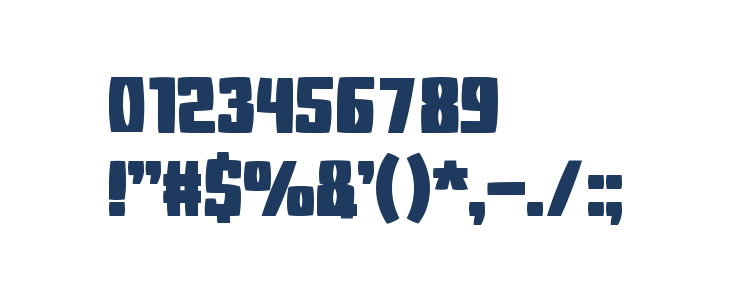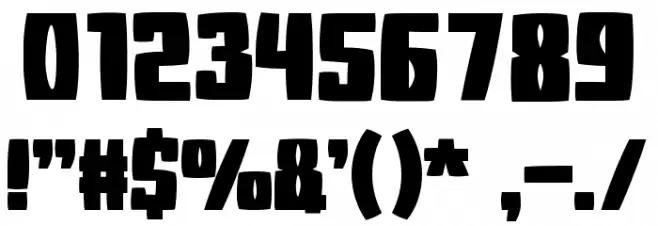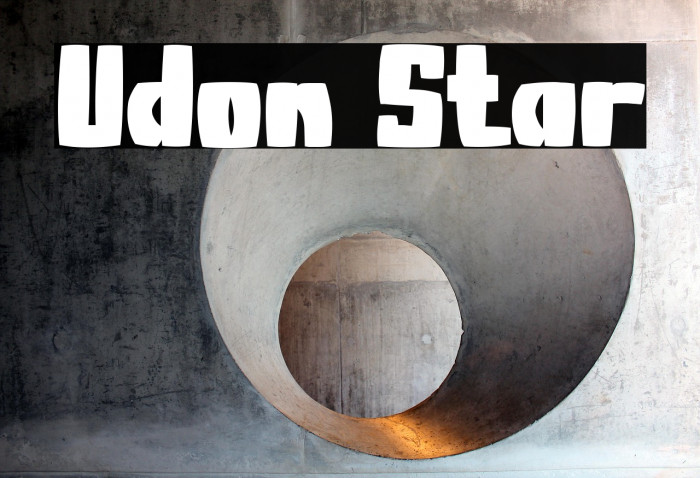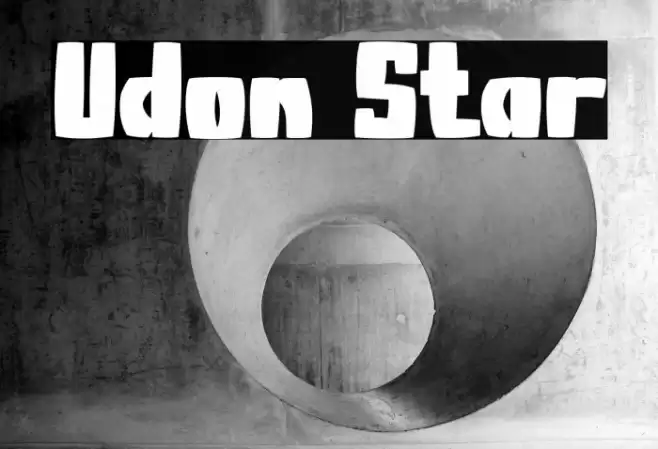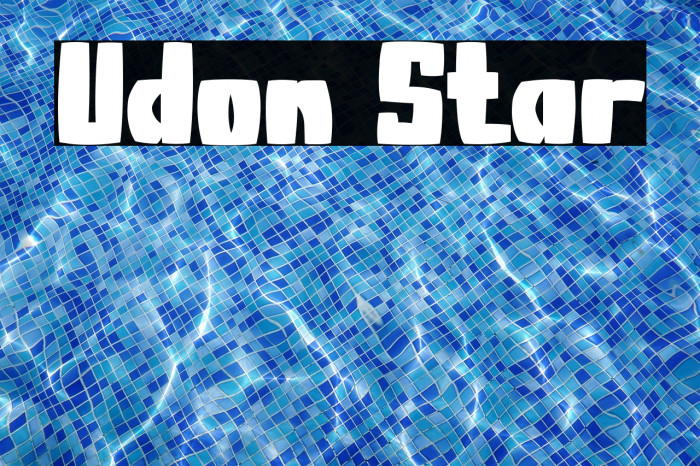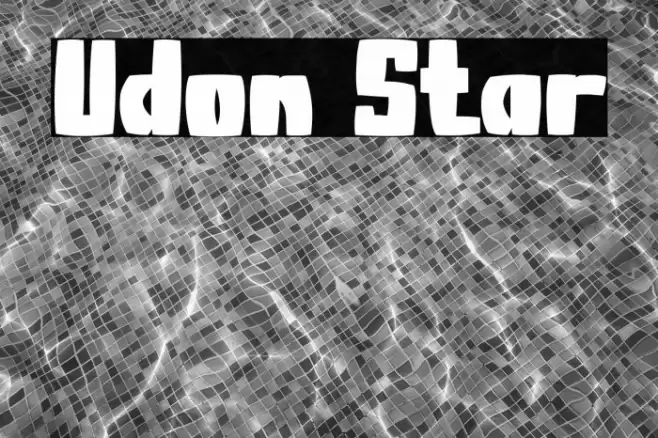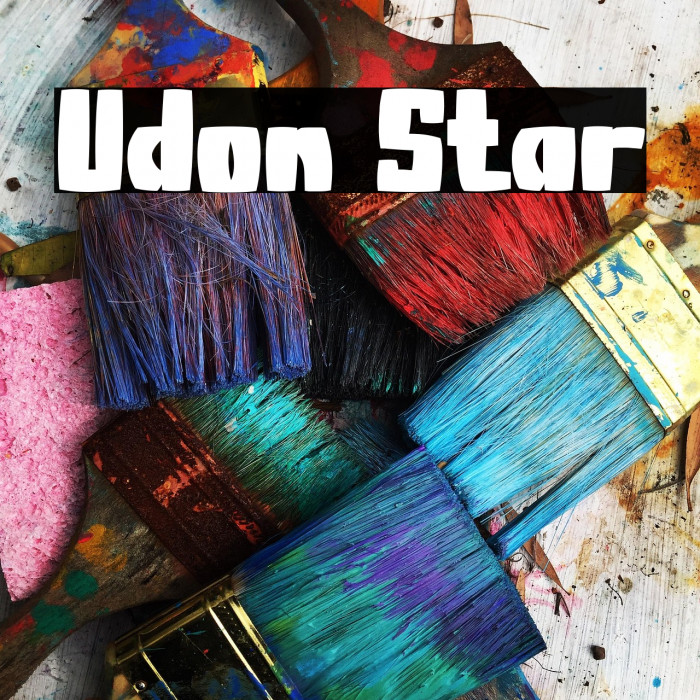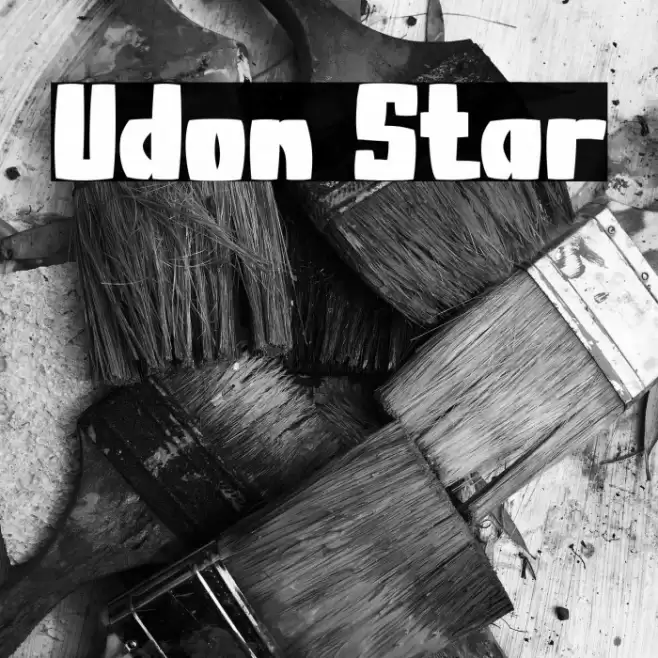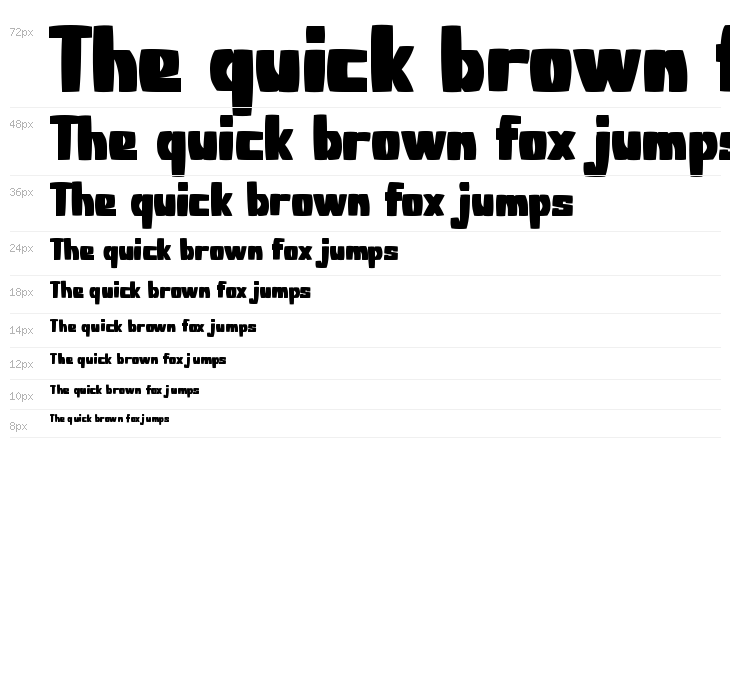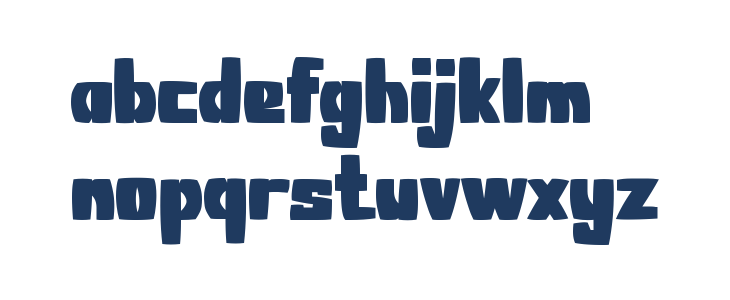
Udon Star Font
Udon Star Description
This font features a bold and playful design with thick, rounded strokes that give it a friendly and approachable appearance. The characters are slightly irregular, adding a hand-drawn feel that enhances its whimsical nature. The uppercase and lowercase letters maintain a consistent weight, while the numbers and special characters blend seamlessly with the overall style. The font's unique personality makes it stand out, making it ideal for creative and informal projects.
| Proposed Projects | Perfect for children's books, playful branding, posters, and creative social media graphics. |